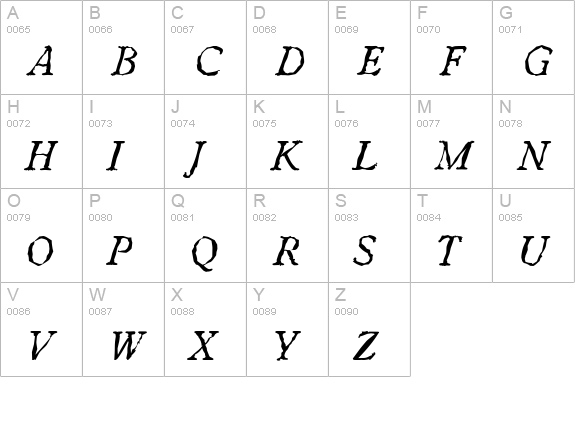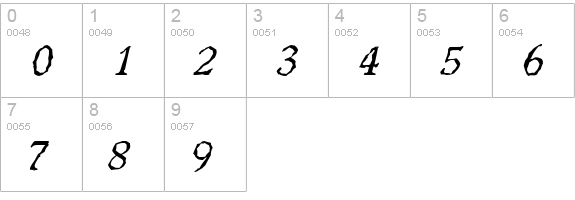
WorcesterRandom-Italic Font Details
WorcesterRandom-Italic is a distinctive, italic variant in the WorcesterRandom typeface family \xE2\x80\x94 well suited to design and typography projects.
WorcesterRandom-Italic font is a whimsical and unique typeface that will add a touch of playfulness to any design project. Its quirky and irregular letterforms give it a hand-drawn, spontaneous feel that is perfect for adding a personal touch to your work. This font is freely available to download at FontsMarket.com, making it accessible to anyone looking to add a fun and creative element to their designs. Whether you're working on a poster, logo, or social media graphic, WorcesterRandom-Italic font is sure to make your text stand out and capture the attention of your audience. Don't miss out on this playful and expressive font that is sure to add character to your projects!